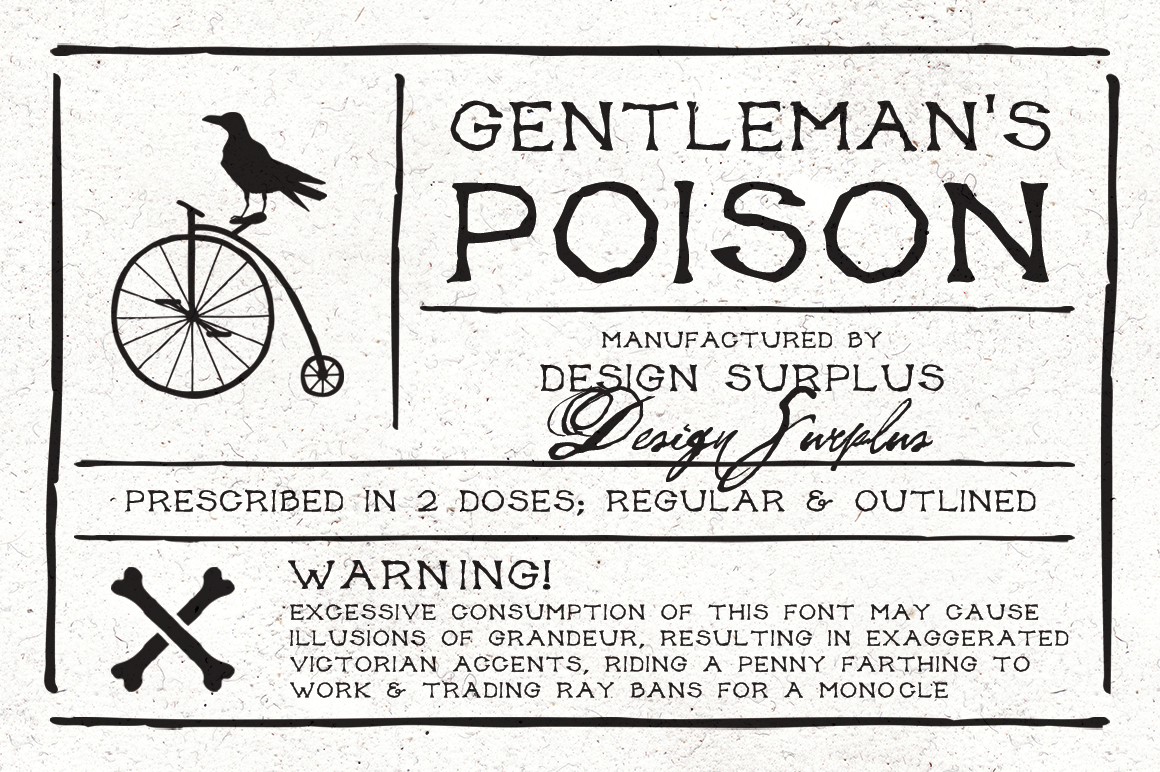
Gentleman's Poison Font (2 versions)
Gentleman's Poison Font is 100% hand drawn, inspired by Victorian times. The font comes in 2 doses; Regular and Outlined. 14 hand drawn victorian vector icons are also included with Gentleman's Poison. Photoshop and Illustrator files contain a spider, rat, bird, cobwebs, bones etc.